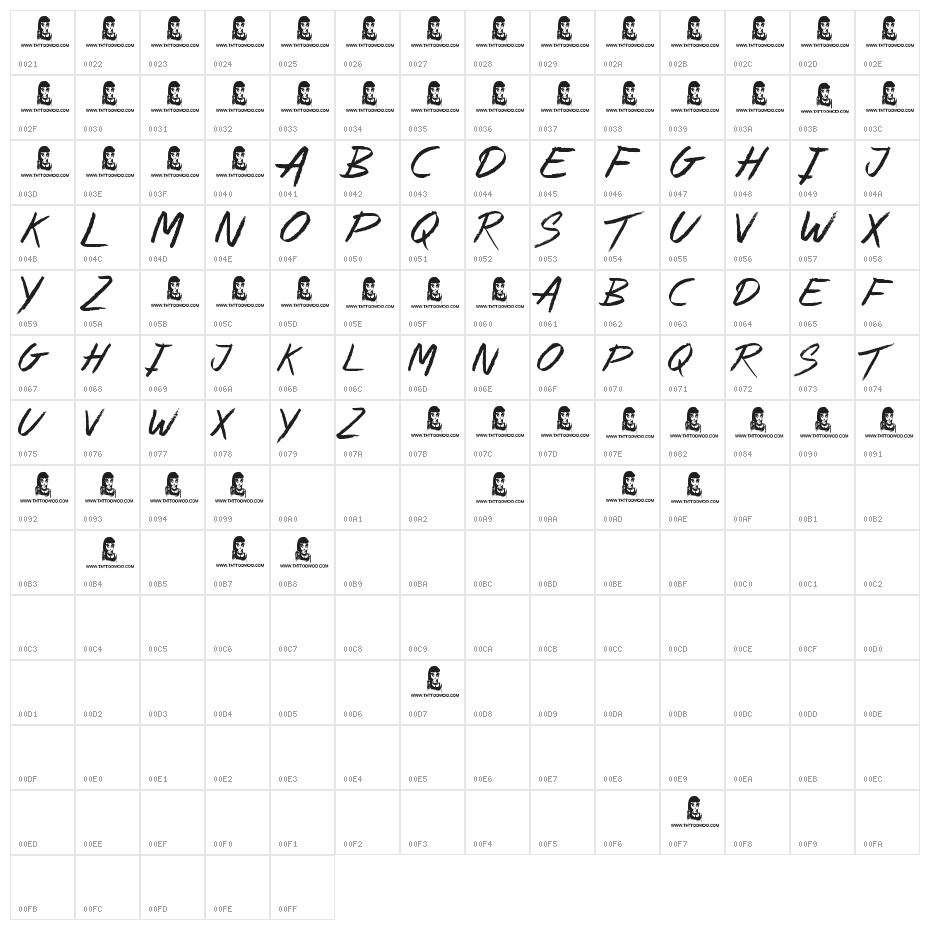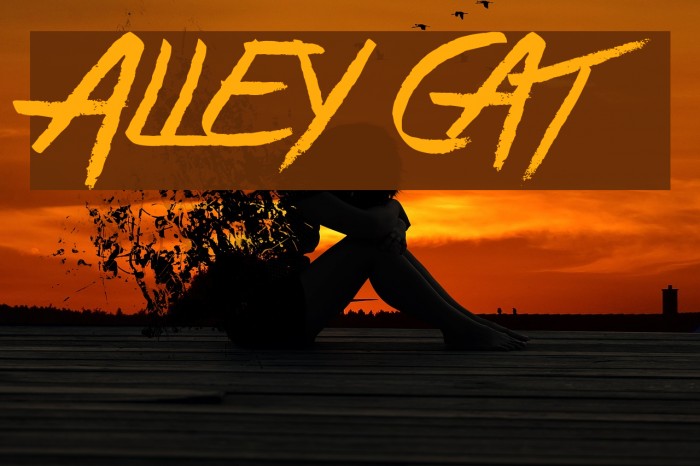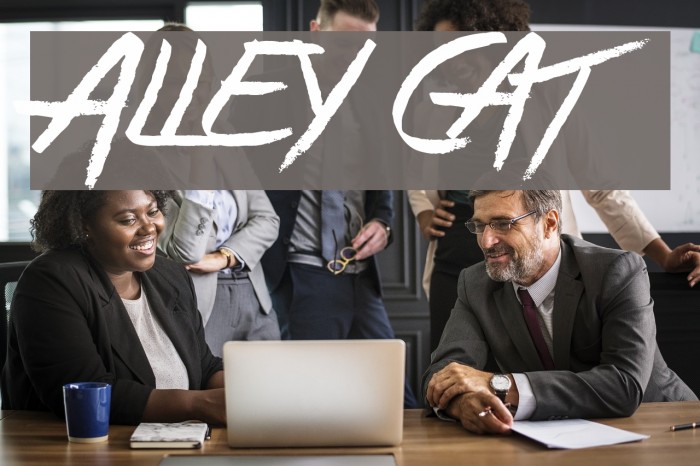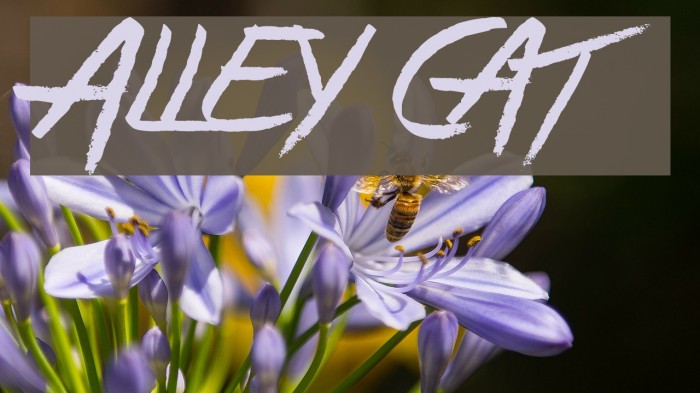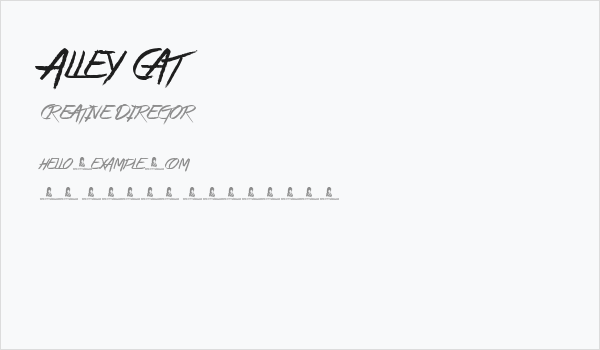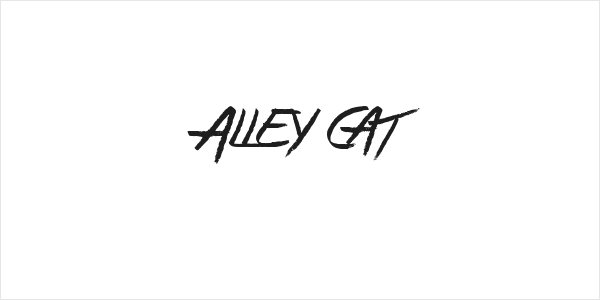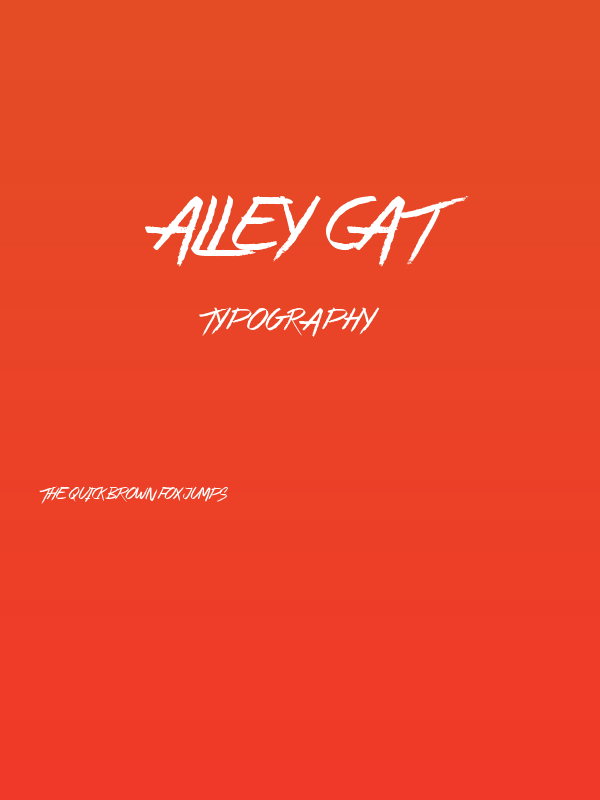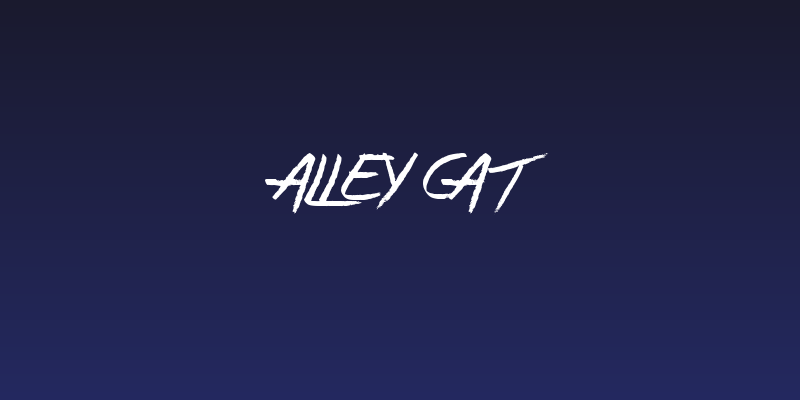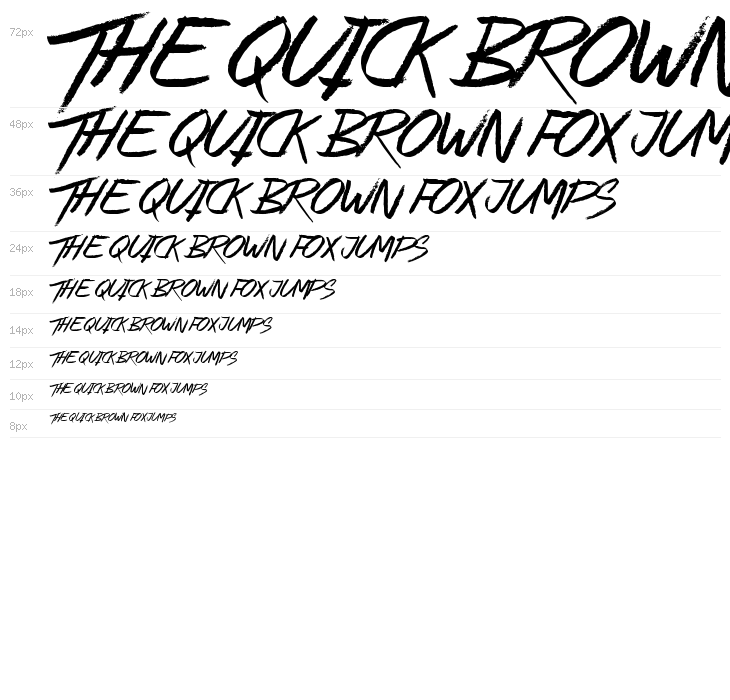
Alley Cat Font
Alley Cat Description
This font features a bold, expressive style with a hand-drawn appearance, reminiscent of graffiti or street art. The strokes are dynamic and irregular, giving a sense of movement and energy. Each character is unique, with varying angles and curves that create a lively and informal aesthetic. The texture of the strokes suggests a brush or marker tool, adding to its raw and edgy feel. This font is ideal for projects that require a personal touch or a rebellious, urban vibe.